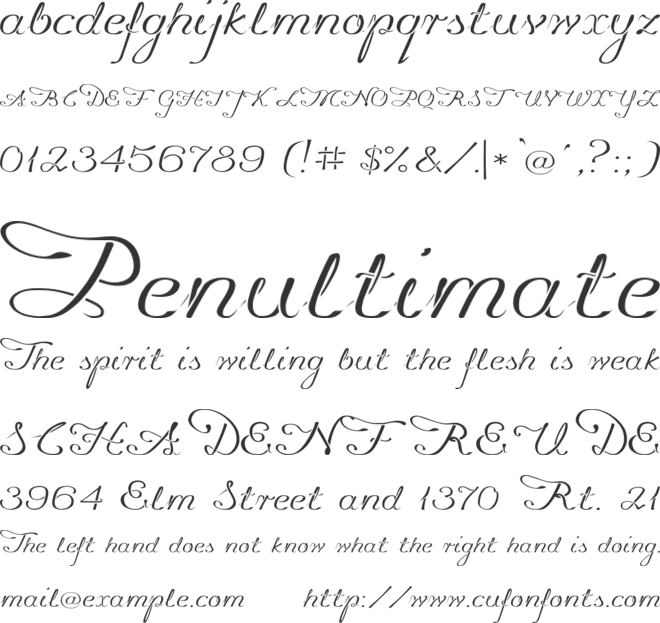
Promocyja Font Family
This font is inspired by Polish-Lithuanian Constitution of 3 Mai 1791 and is released to the Public Domain. Created by gluk () with Fontforge.